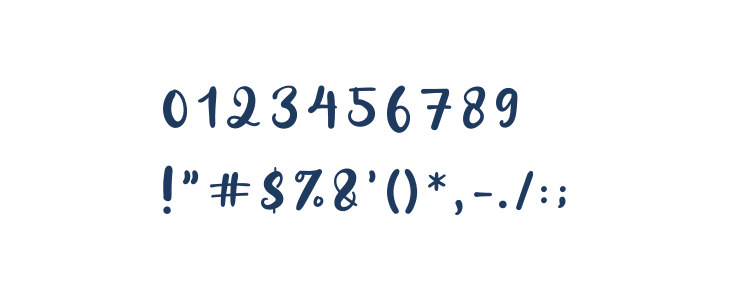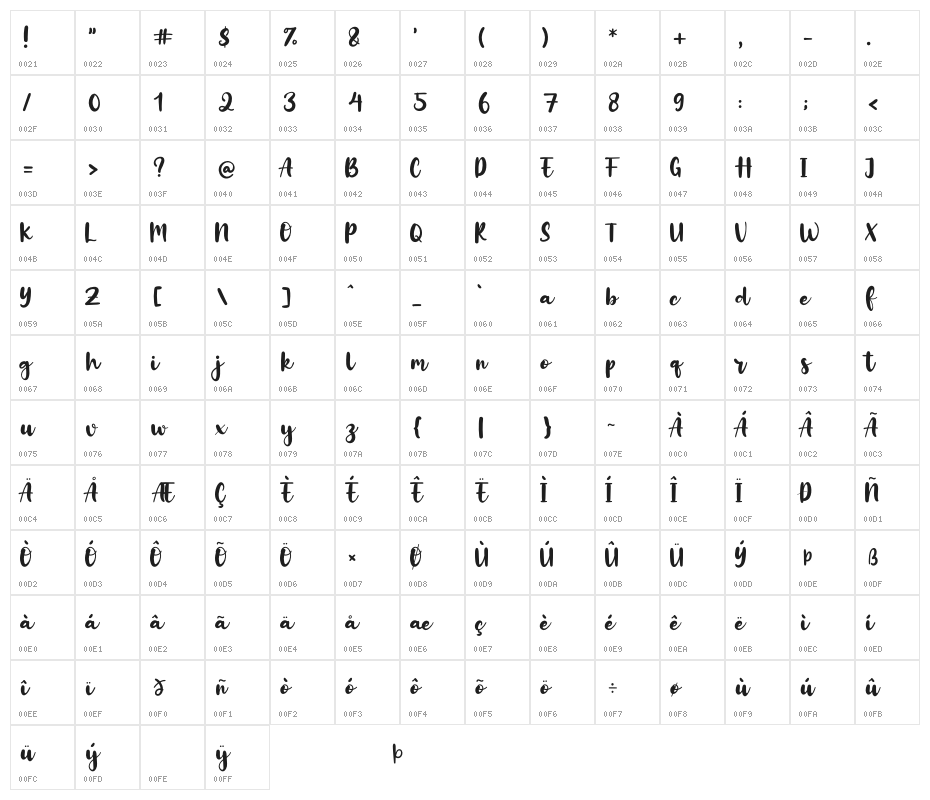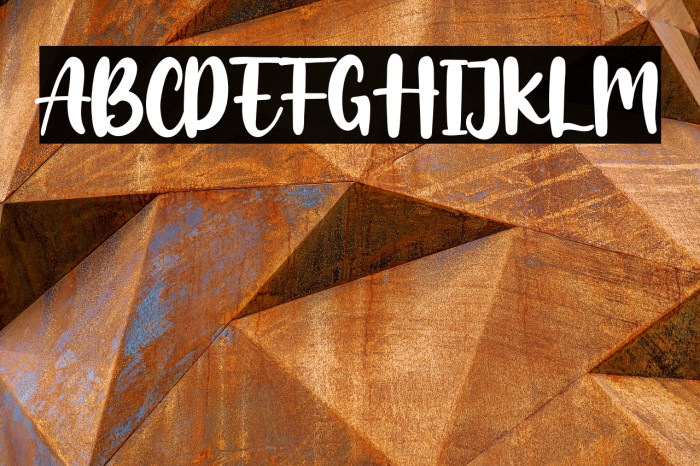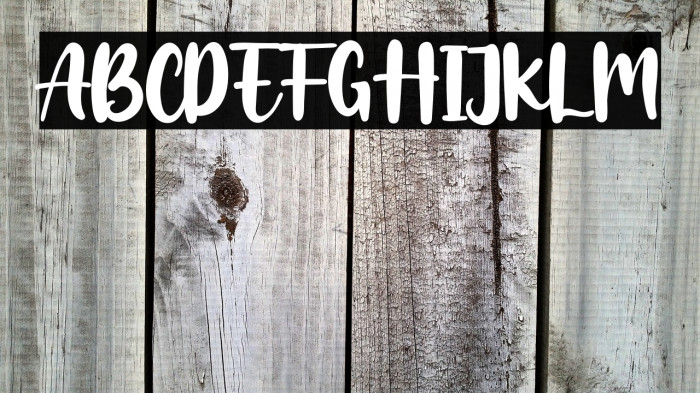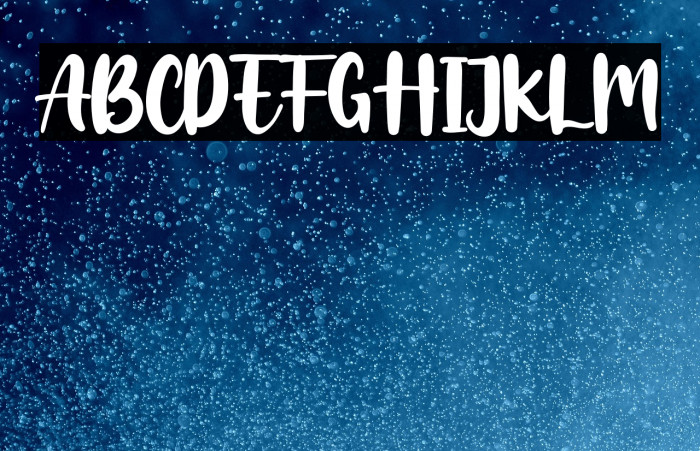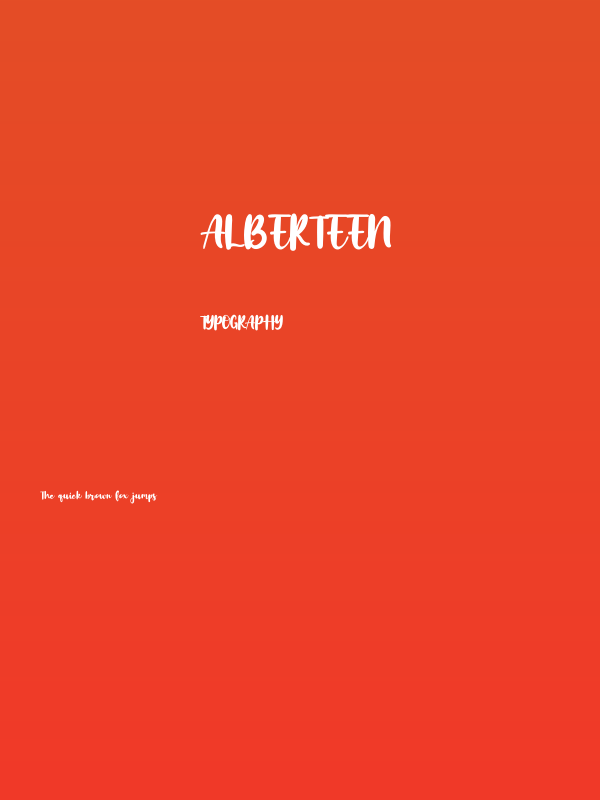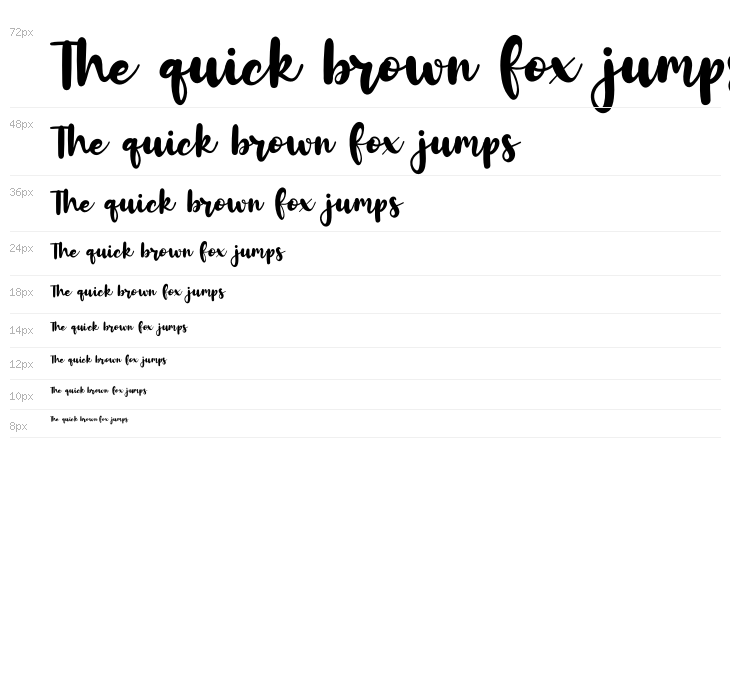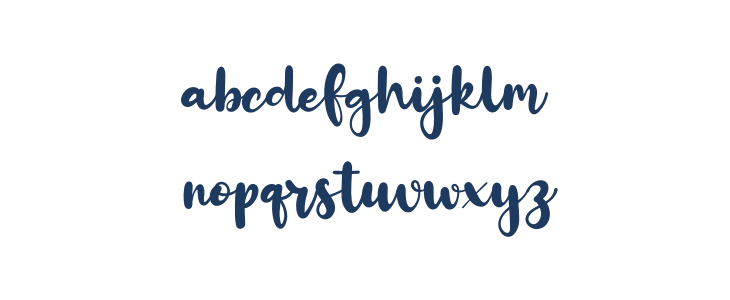
Alberteen Font
Alberteen Description
This font exudes a playful and lively character, featuring bold, flowing strokes that give it a handwritten appearance. The letters are connected in a cursive style, with a consistent thickness throughout, creating a harmonious and fluid look. The uppercase letters stand tall and confident, while the lowercase letters maintain a friendly and approachable demeanor. The numerals and special characters are crafted with the same attention to detail, ensuring a cohesive design across all elements. This font is perfect for projects that require a personal touch, such as invitations, greeting cards, or branding materials that aim to convey warmth and creativity.
| Proposed Projects | Ideal for invitations, greeting cards, branding, and creative projects. |